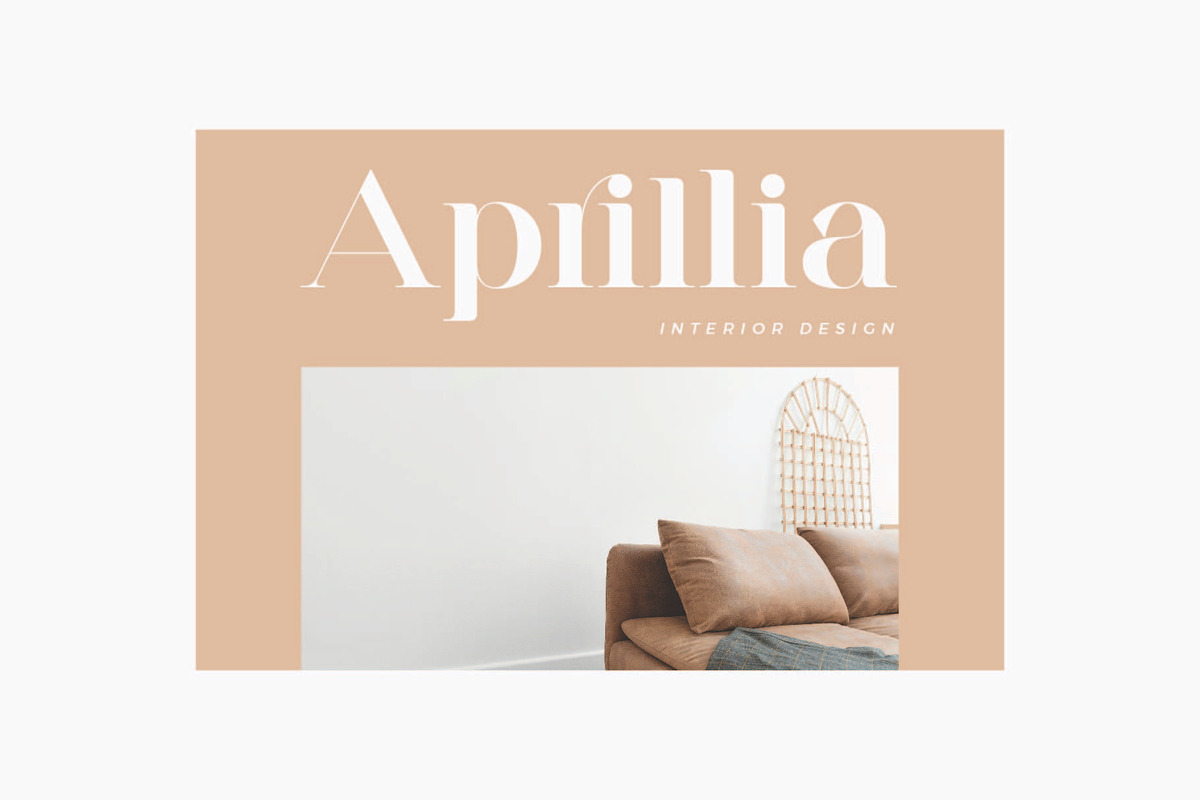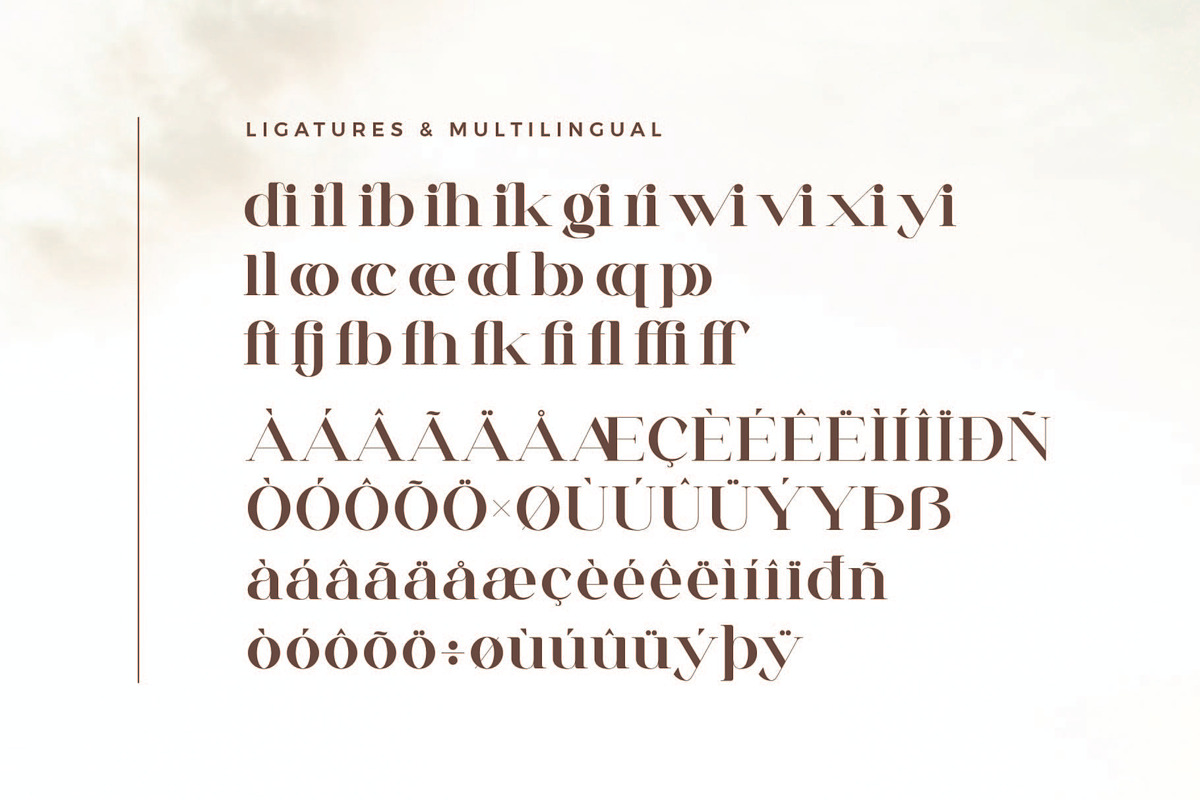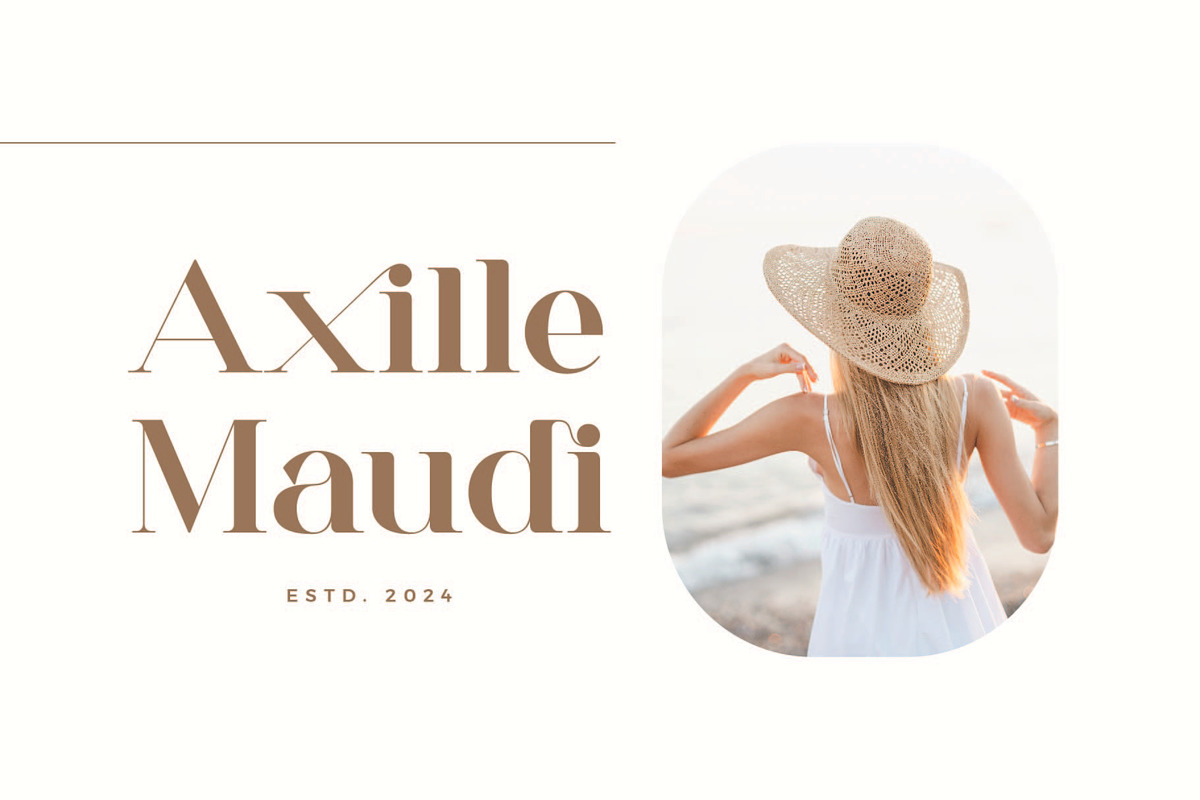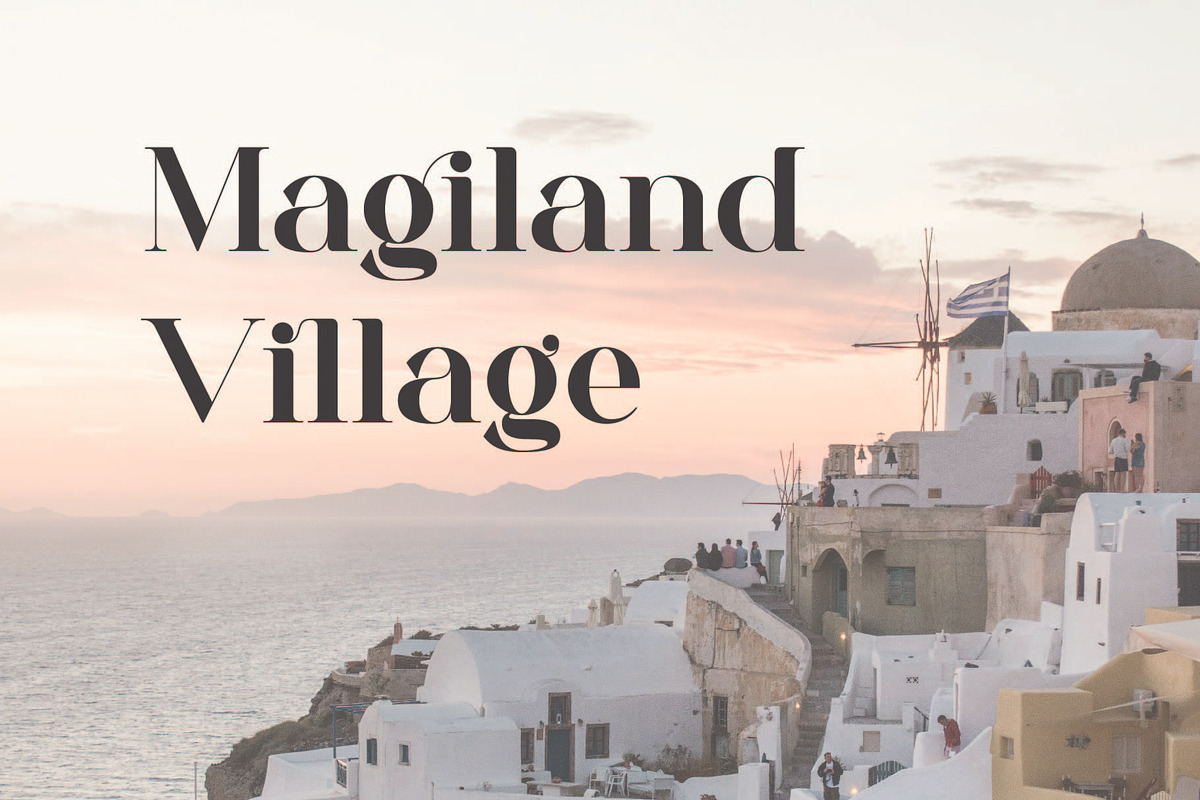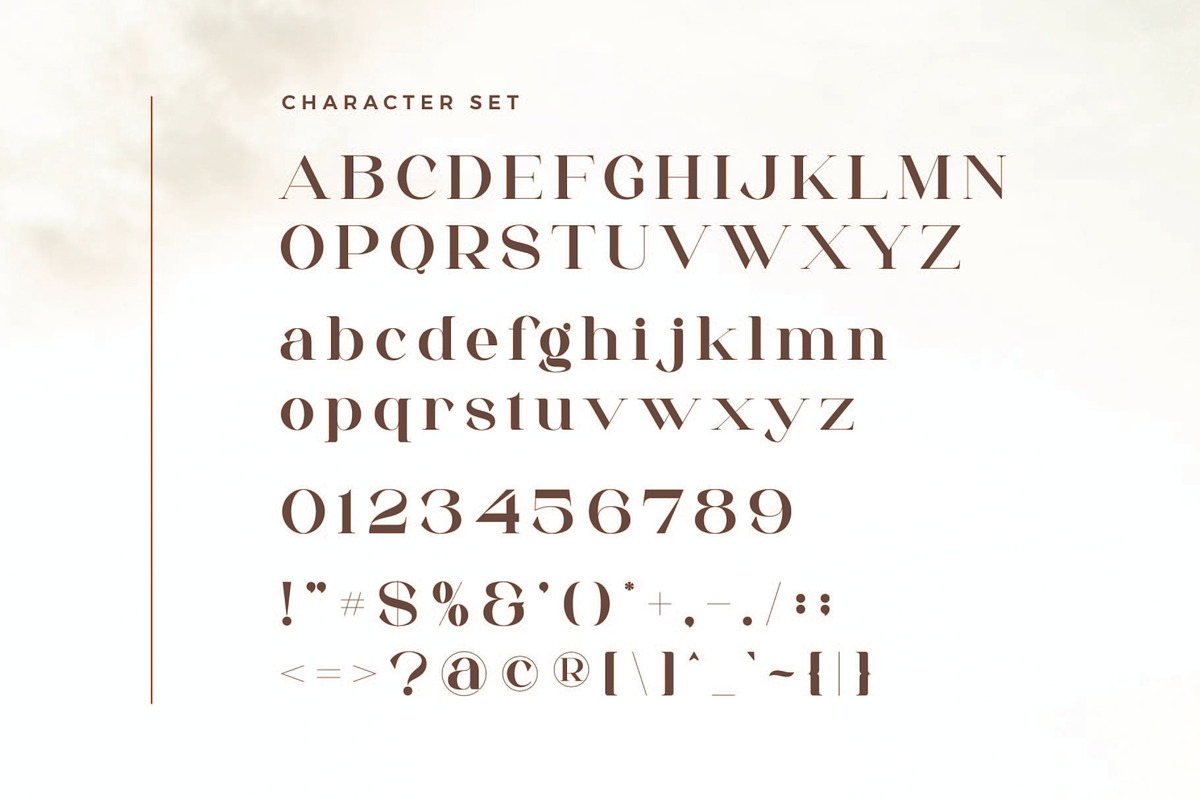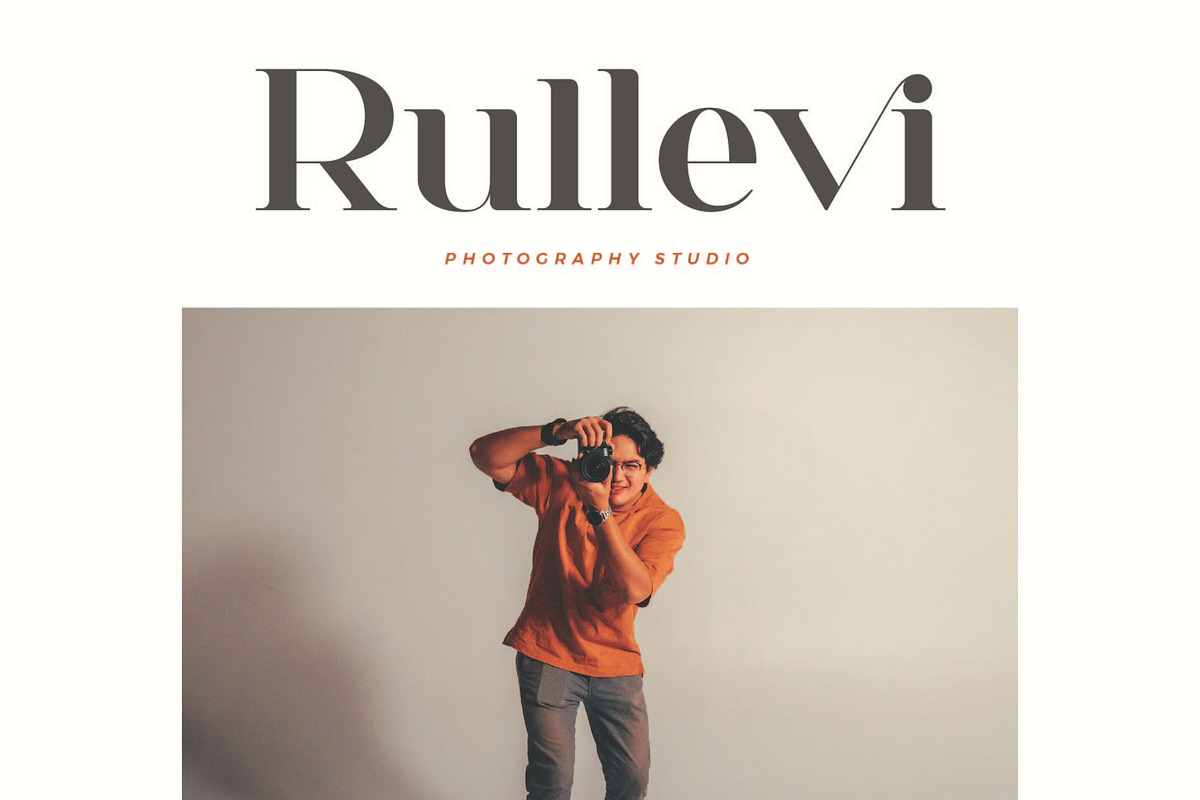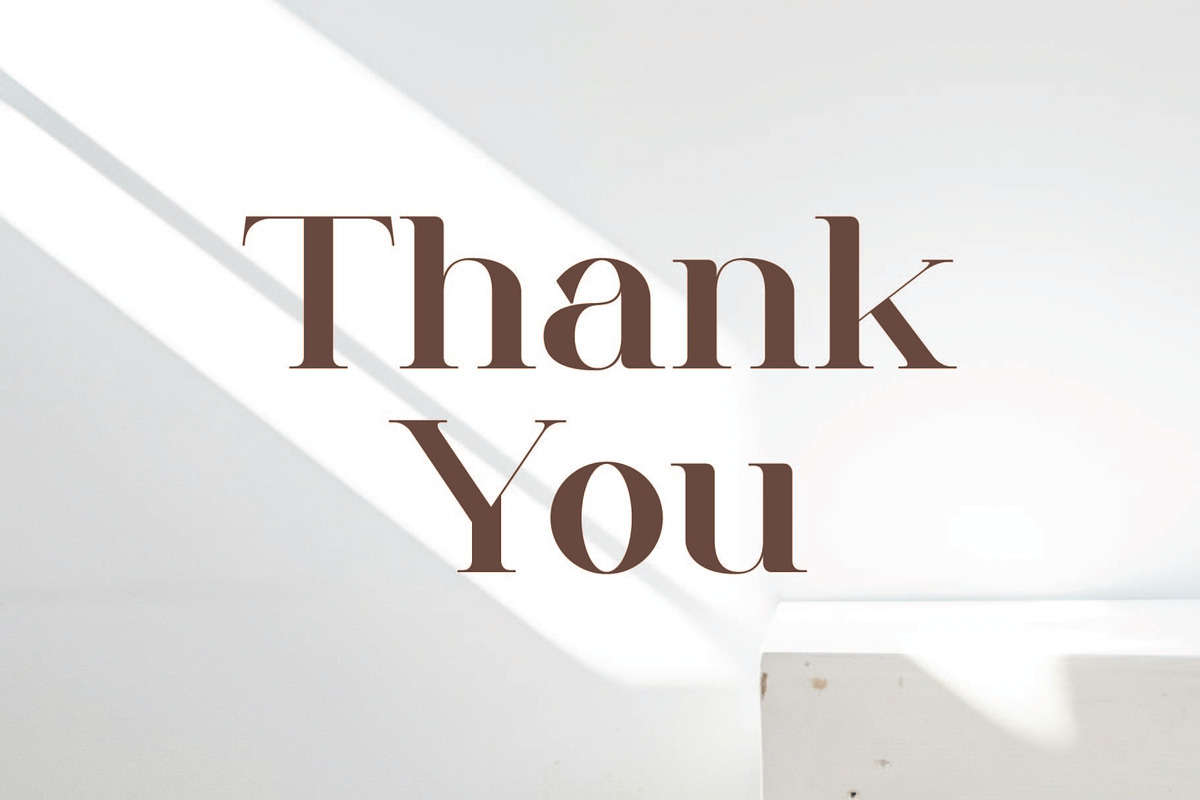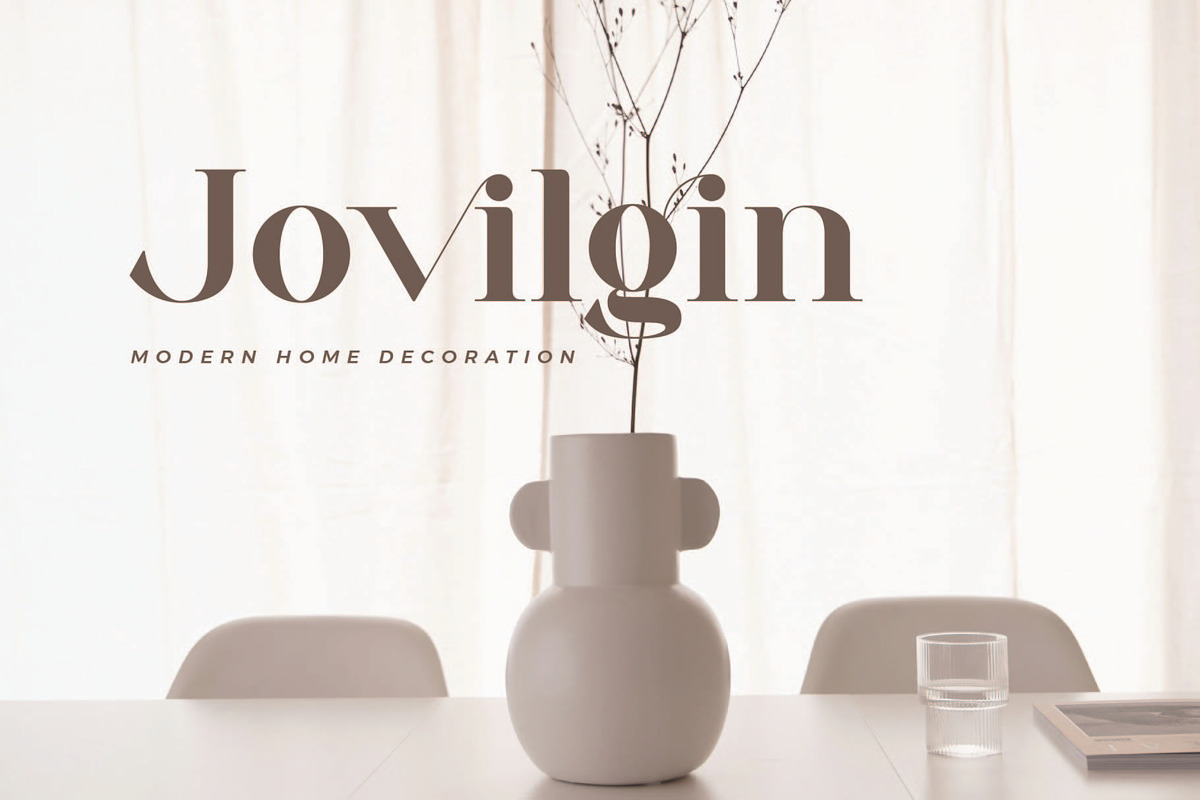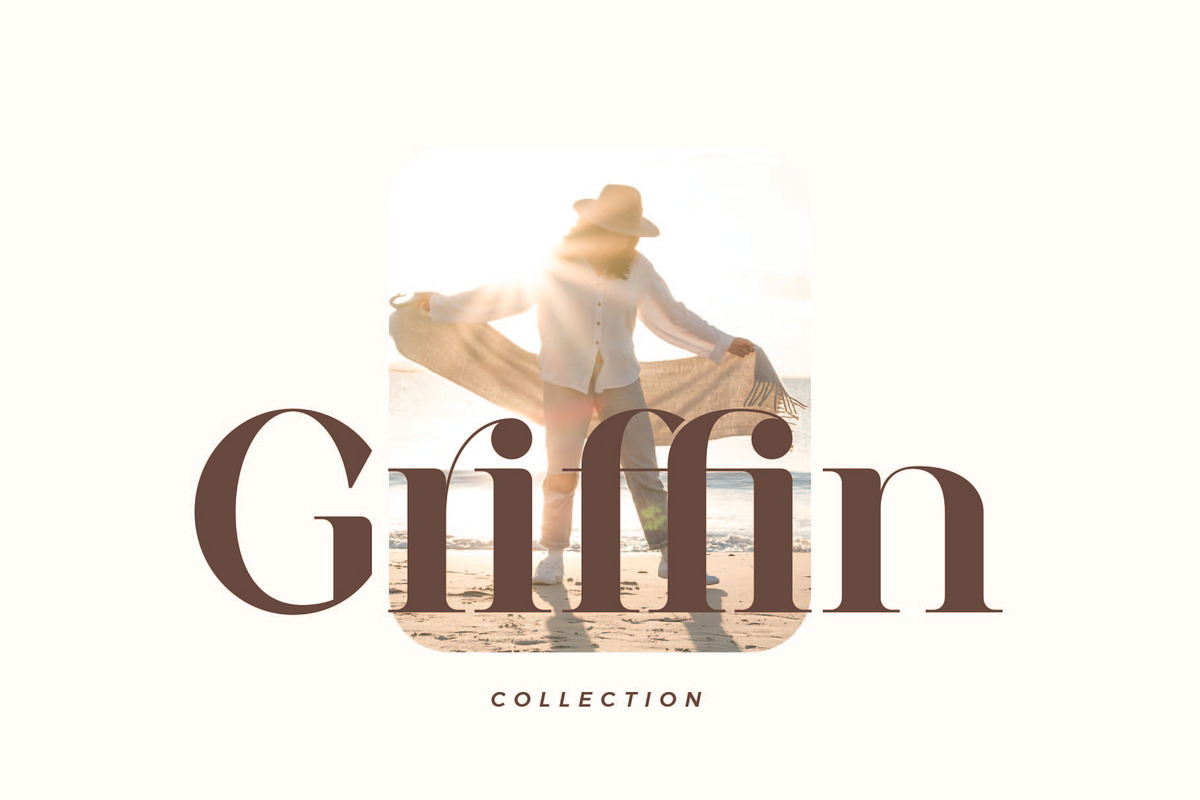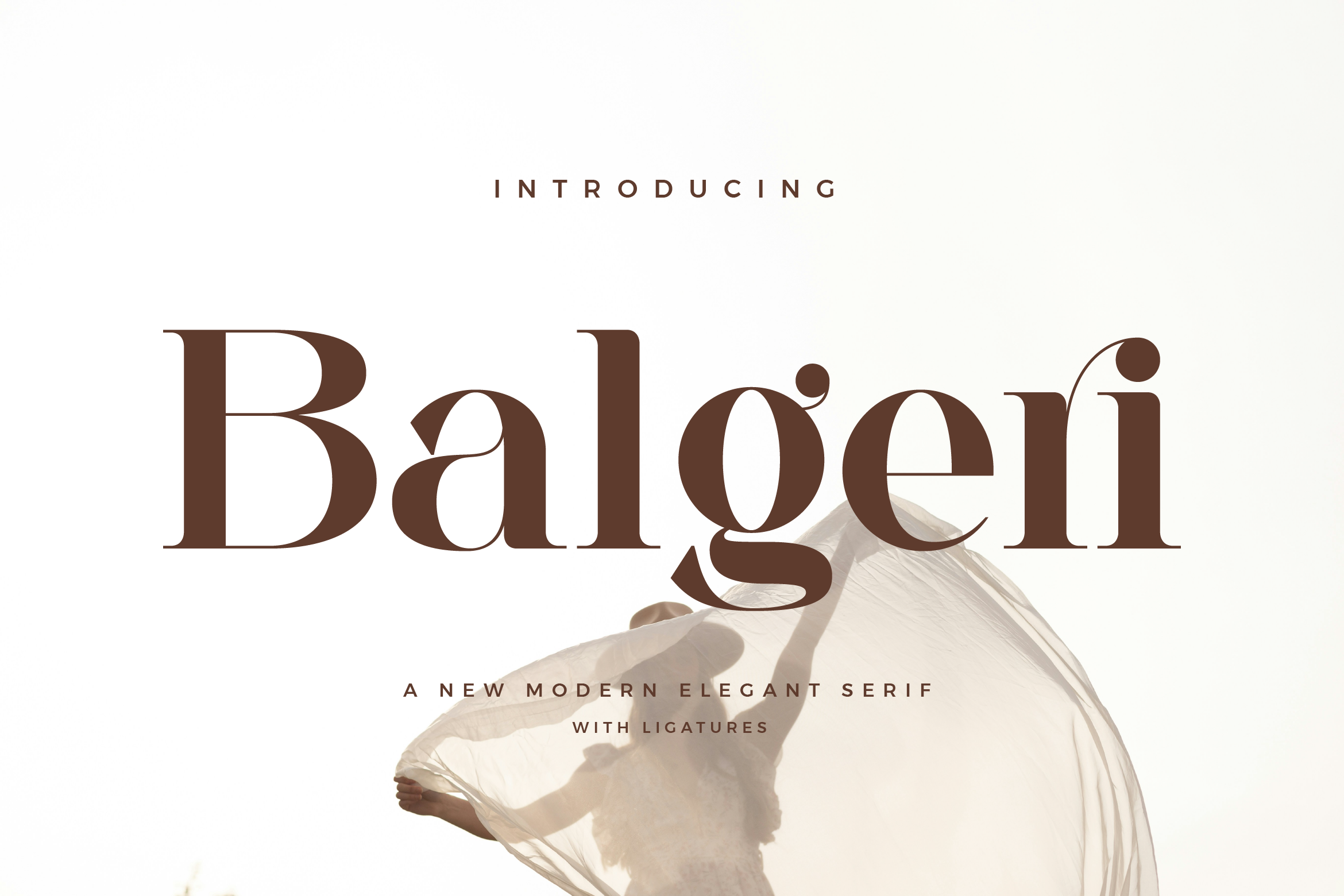
Balgeri - Modern Serif Font
Balgeri Stylish Ligature Typeface, inspired by the famous minimalist logo perfect for the purposes of designing templates, brochures, videos, advertising branding, logos and more.